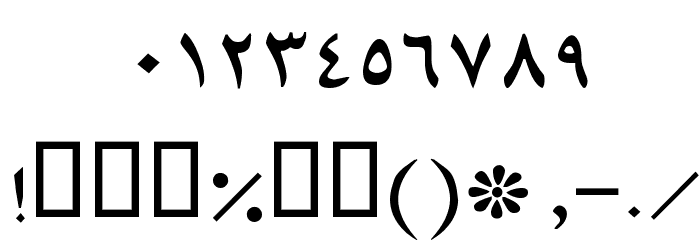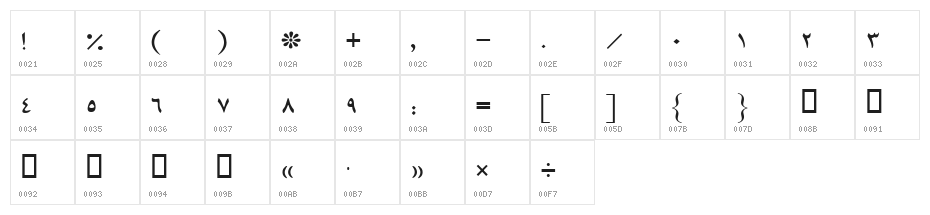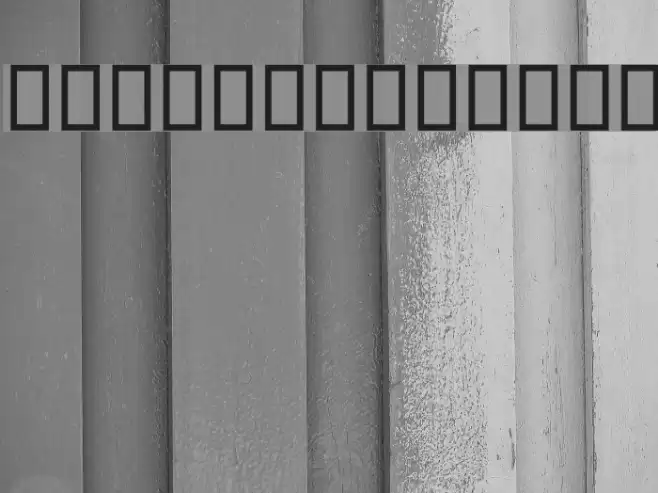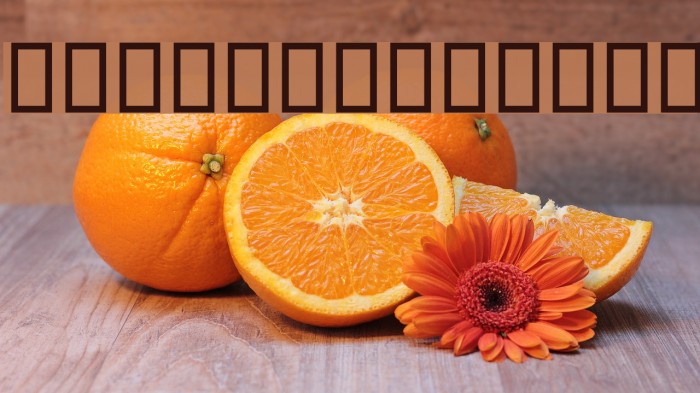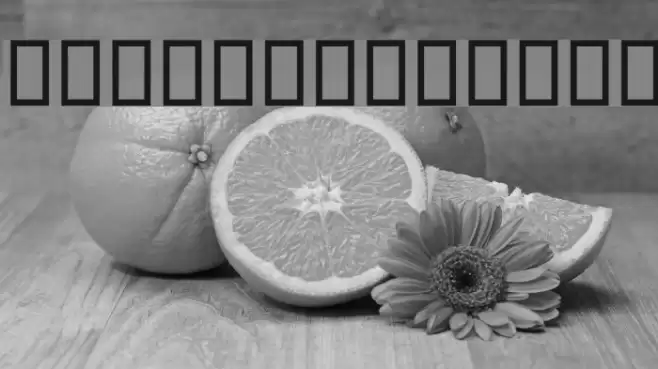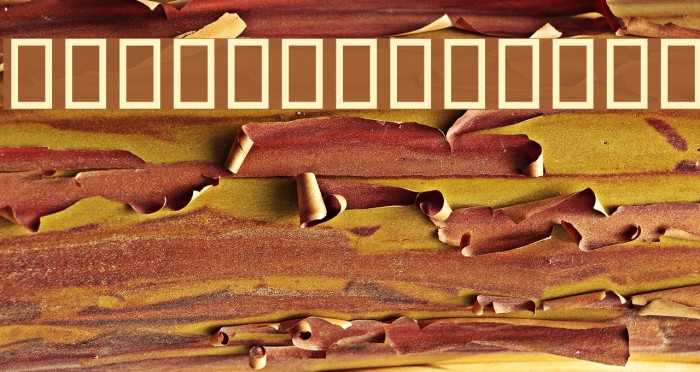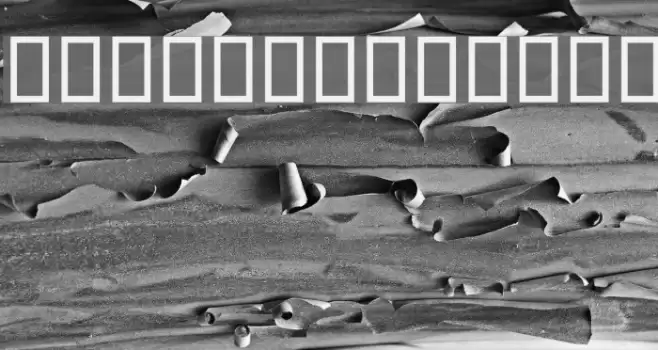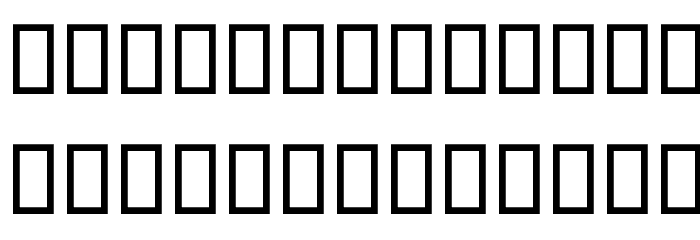
Mashhad Font
Mashhad Description
This font features a unique blend of traditional and modern elements, characterized by its elegant and flowing script style. The numerals are distinct, with a calligraphic flair that adds a touch of sophistication. The special characters are well-integrated, maintaining the font's overall aesthetic. This font is ideal for projects that require a touch of elegance and tradition, such as wedding invitations, formal event programs, or high-end branding materials. Its artistic strokes and balanced proportions make it versatile for both digital and print media.
| Overall Style | Elegant, Traditional |
| Use Case | Headlines, Invitations, Branding |
| Proposed Projects | Wedding invitations, formal event programs, luxury branding, artistic projects. |